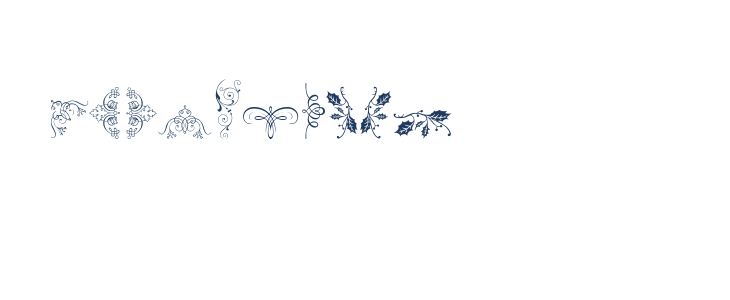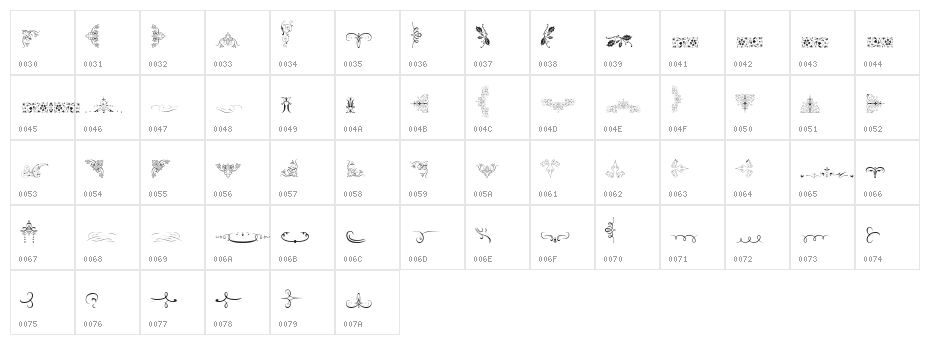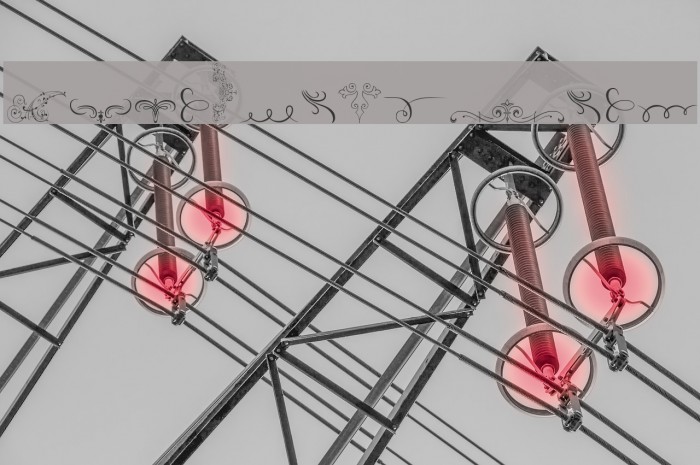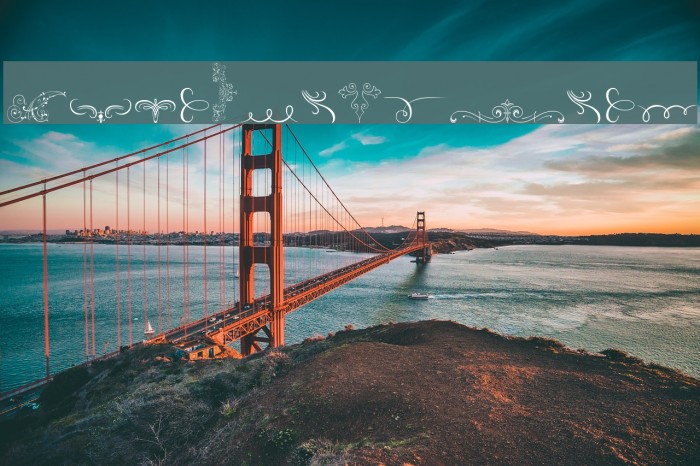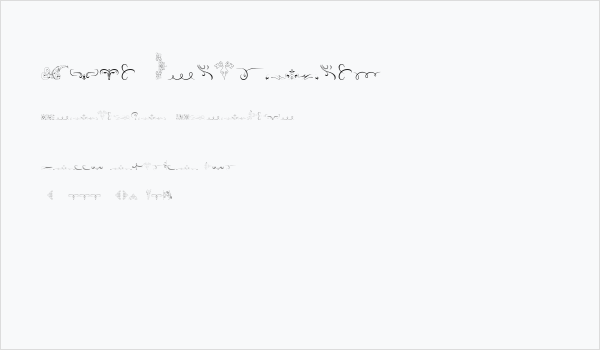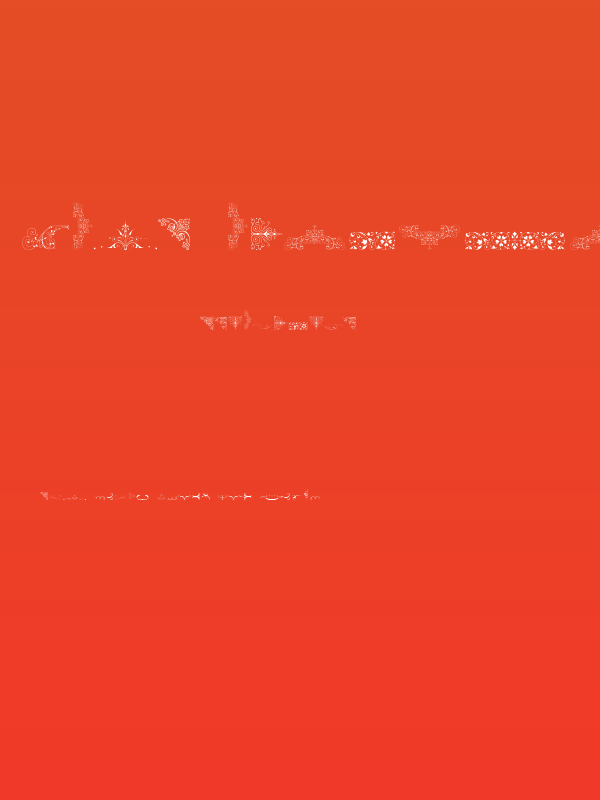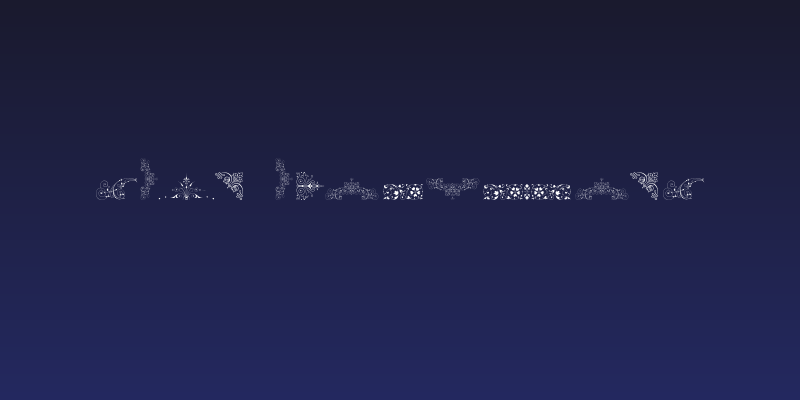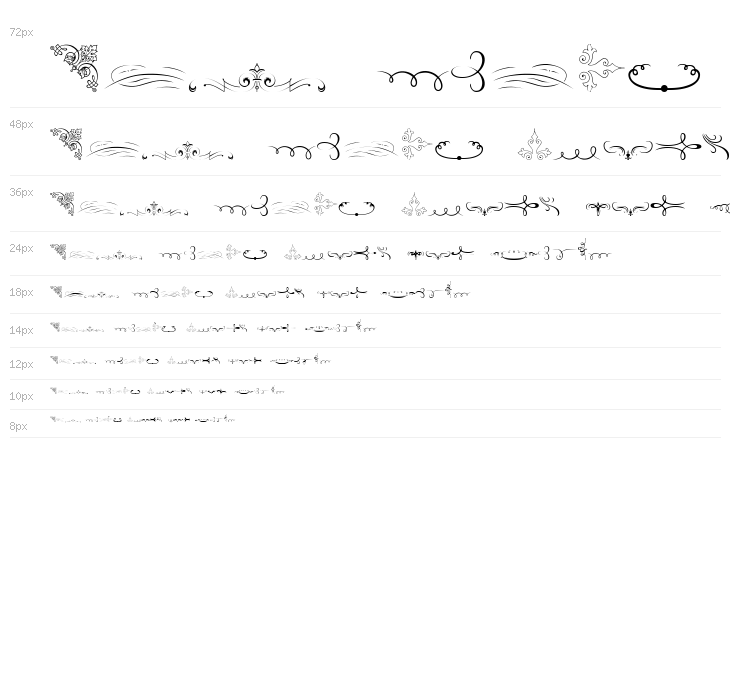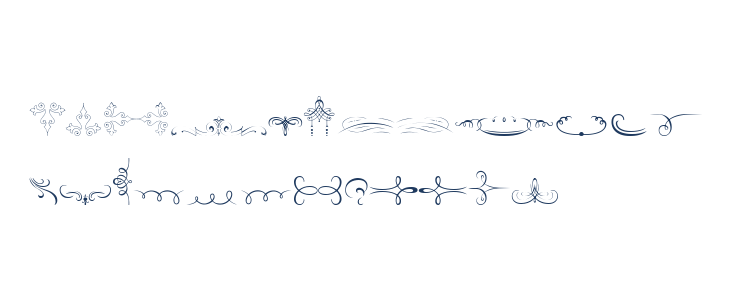
Soft Ornaments Font
Soft Ornaments Description
A highly decorative collection of ornamental glyphs featuring intricate flourishes, swirls, floral motifs, and symmetrical designs. The set includes a variety of borders, corner elements, and standalone embellishments, all rendered with fine, delicate lines and a vintage aesthetic.
| Overall Style | Vintage, Decorative |
| Use Case | Borders, embellishments, decorative accents |
| Proposed Projects | Wedding invitations, certificates, vintage branding, decorative borders, book covers, greeting cards. |